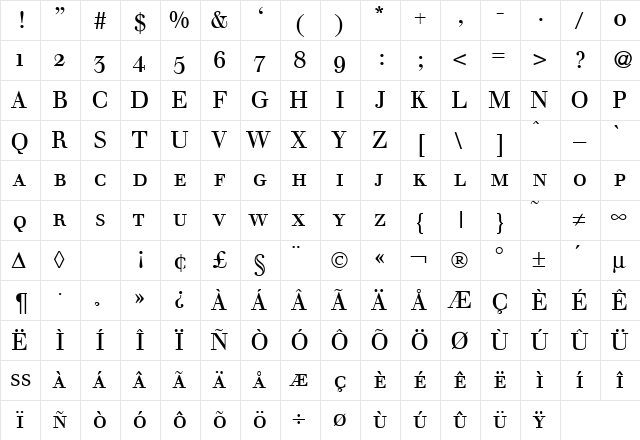
WalbaumDisplaySmc Regular
Design Context for WalbaumDisplaySmc Typeface
WalbaumDisplaySmc brings ornamental detail and strong personality to headlines and identities, where visual impact matters more than quiet functionality.
Font Pairing: Pair with a clean neutral sans-serif for body copy to let WalbaumDisplaySmc's character lead without overwhelming the composition.
Pro Tip: Use WalbaumDisplaySmc exclusively at display sizes — it was designed to be seen, not read at length. Let a neutral companion handle body copy.